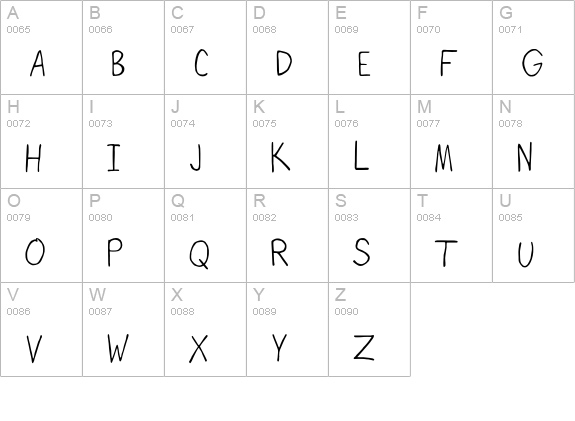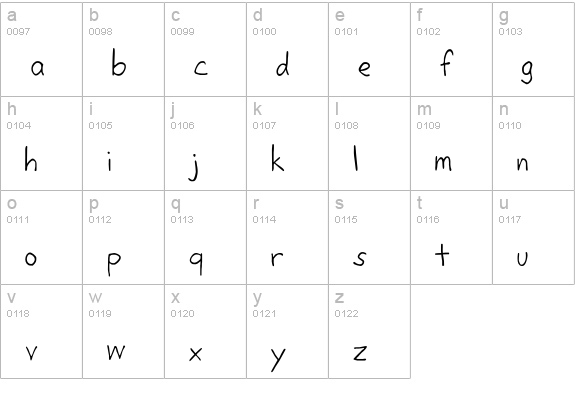
Henninger Font Details
Henninger font is a versatile and modern typeface that exudes elegance and sophistication. With its clean lines and balanced proportions, Henninger is perfect for a wide range of design projects, from branding to editorial design. This font features a unique blend of traditional and contemporary elements, making it stand out from the crowd. What sets Henninger font apart is that it is not only visually appealing but also available for free download at FontsMarket.com. This means that designers and creatives can easily access this high-quality font for their projects without any cost. Whether you're working on a logo, website, or print materials, Henninger font offers a timeless and stylish solution that will elevate your designs to the next level. Download Henninger font today and add a touch of sophistication to your projects.